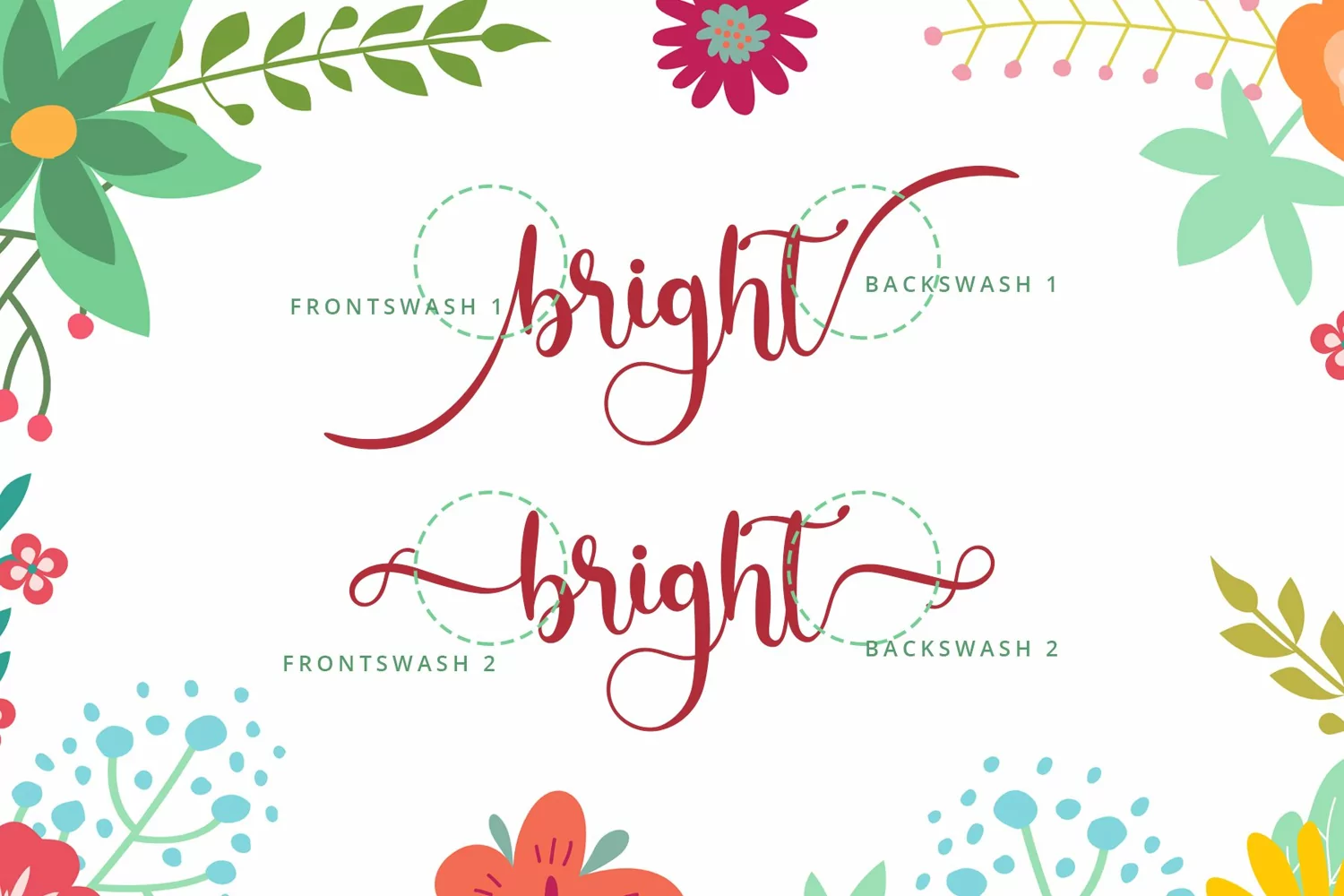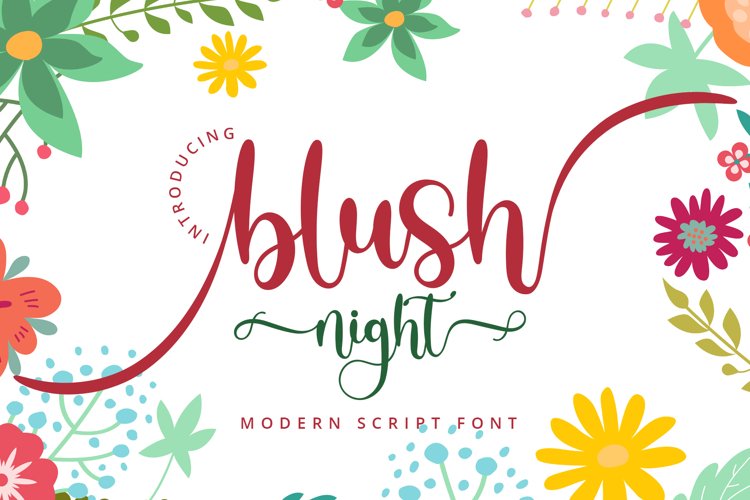
Blush Night is elegant and sweet handwritten font created with aesthetic touch. This font has swash in the beginning and in the end. It's so perfect for any kind of designs, such as invitation, social media post, branding, logo, crafting, and others.
+Tons of Glyphs, including beautiful alternate glyphs.
+Multilingual glyph.